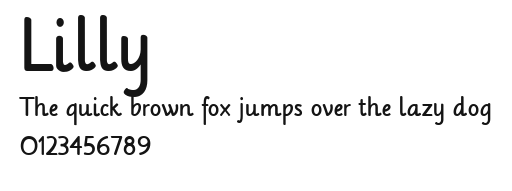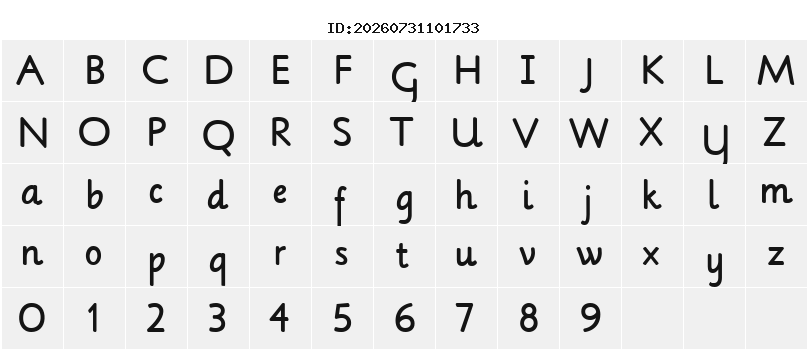
• Font Name: Lilly
About Lilly.ttf
Lilly.ttf is a modern, elegant sans-serif font designed for ultimate readability and visual harmony. Perfect for branding, headlines, web design, and print materials.